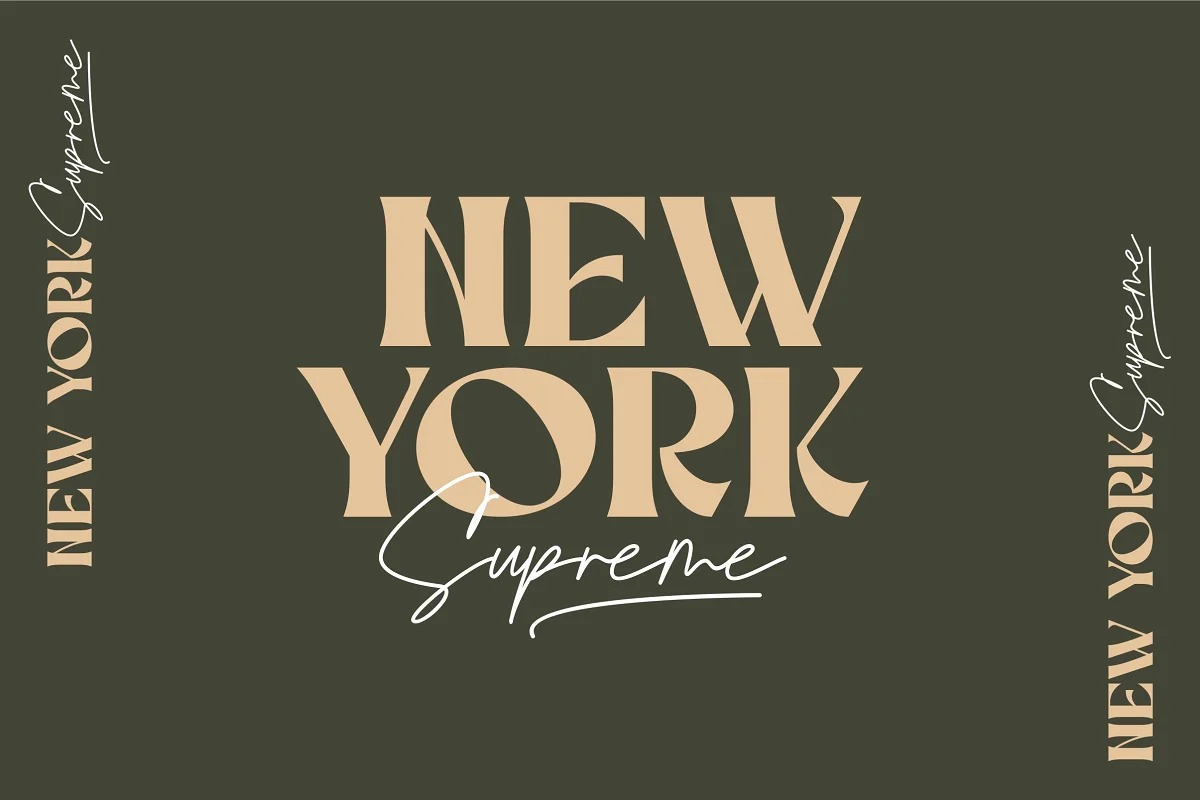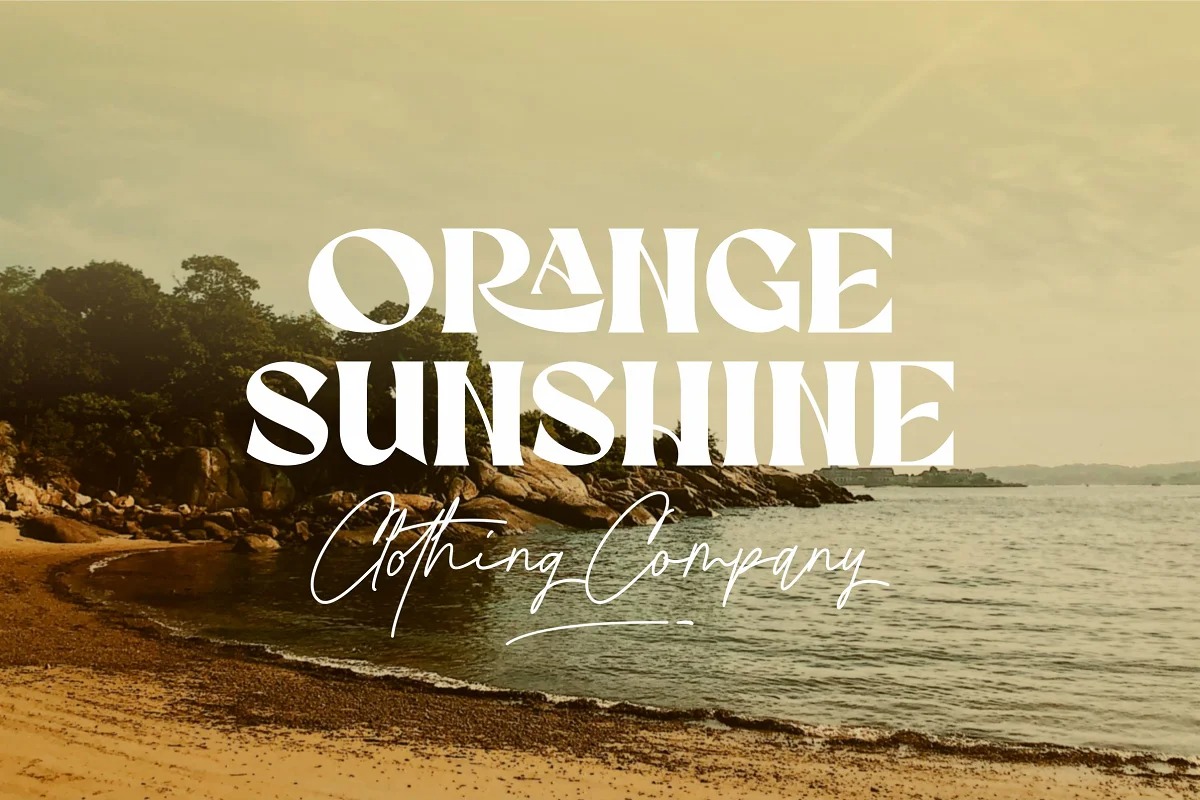
Glow Better Font is a font duo that combine Serif and Script font. The Glow Better Serif font looks contemporary and modern, some letters has unique form. The ligatures on serif makes this typeface unique and stands out rather than the regular serif font, perfectly for headlines, wedding, social media, logos, posters, packaging, T-shirts,coffee shops, restaurants, magazine’s headers, signs or gift/post cards,cafe’s and weddings or any type of advertising purpose.